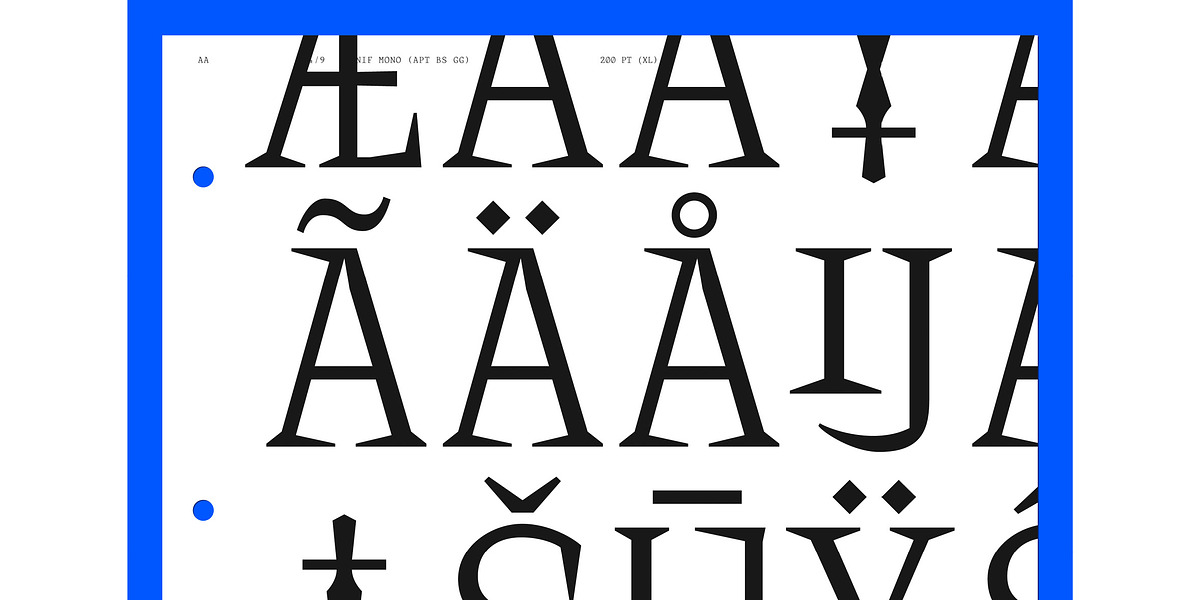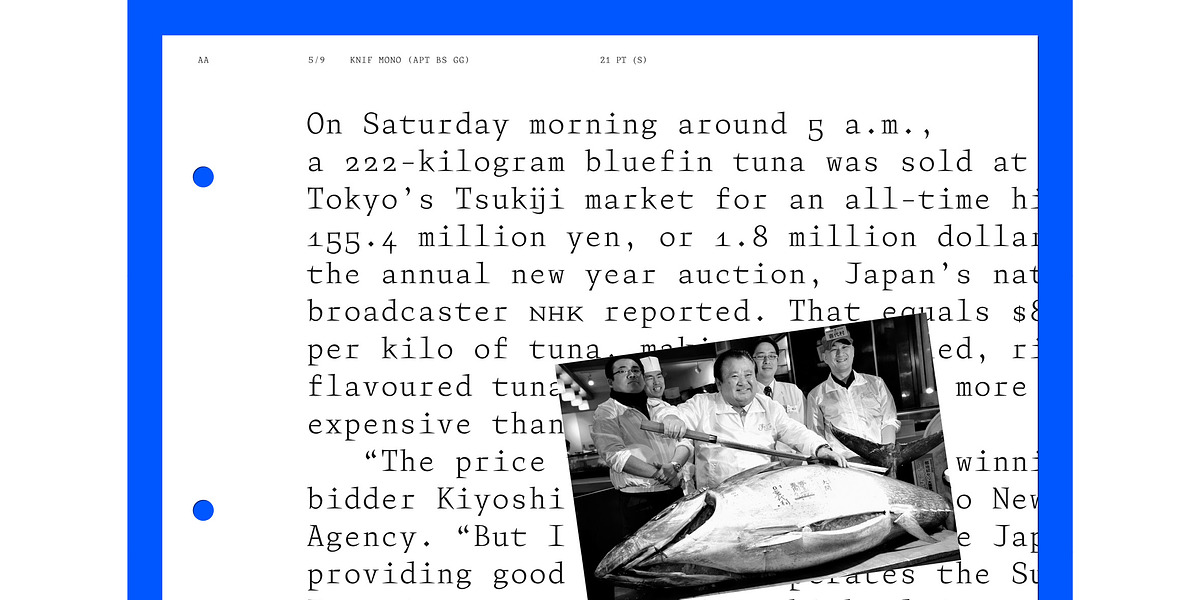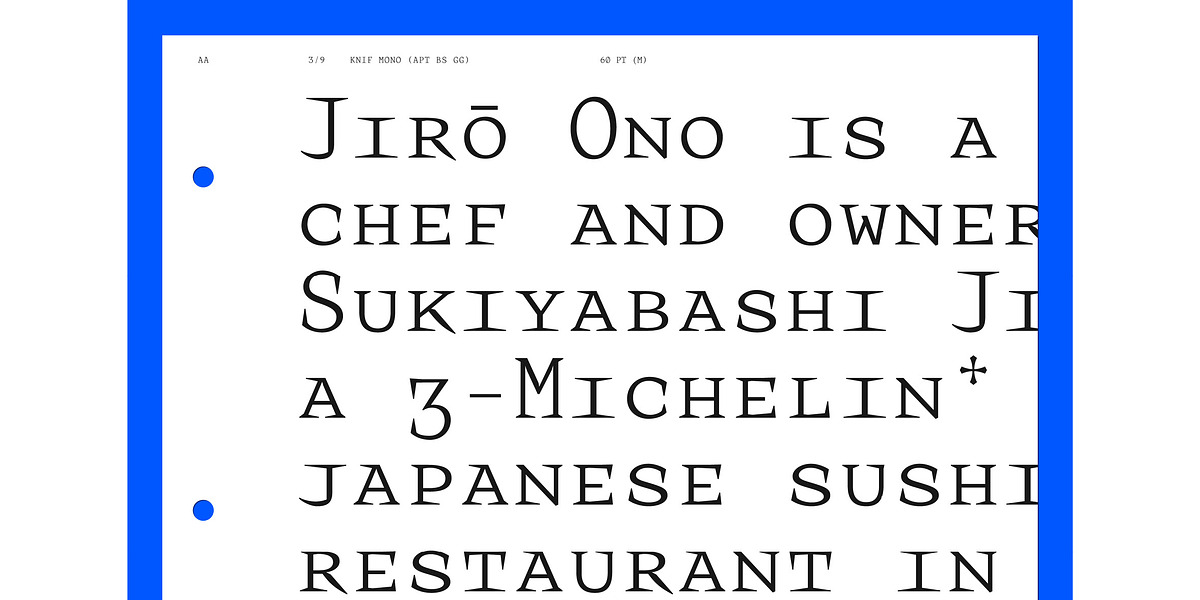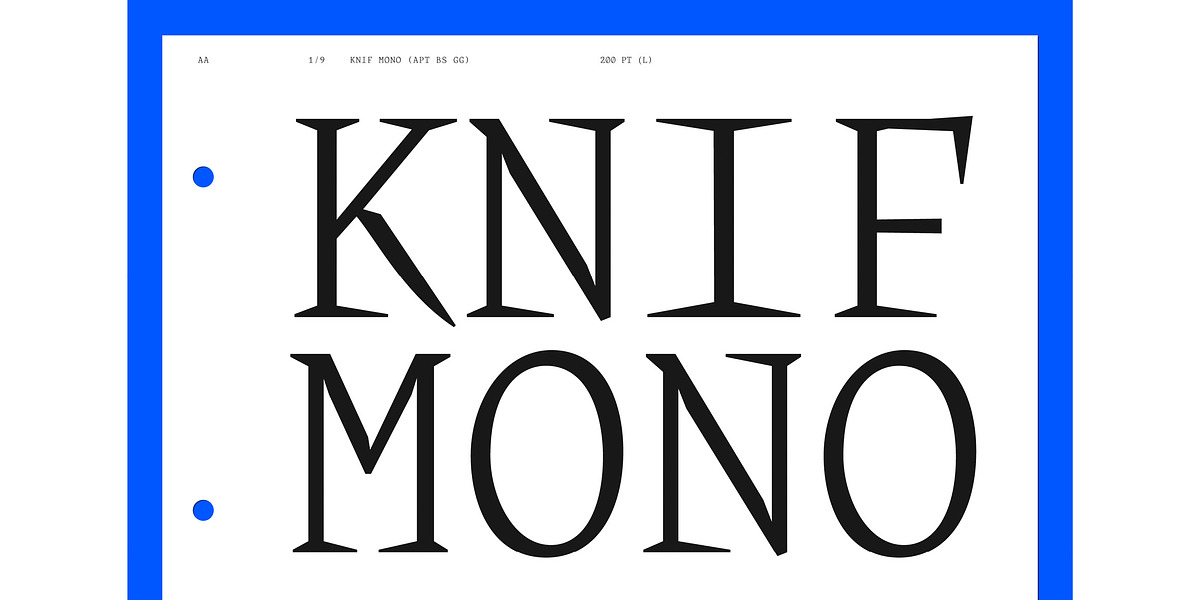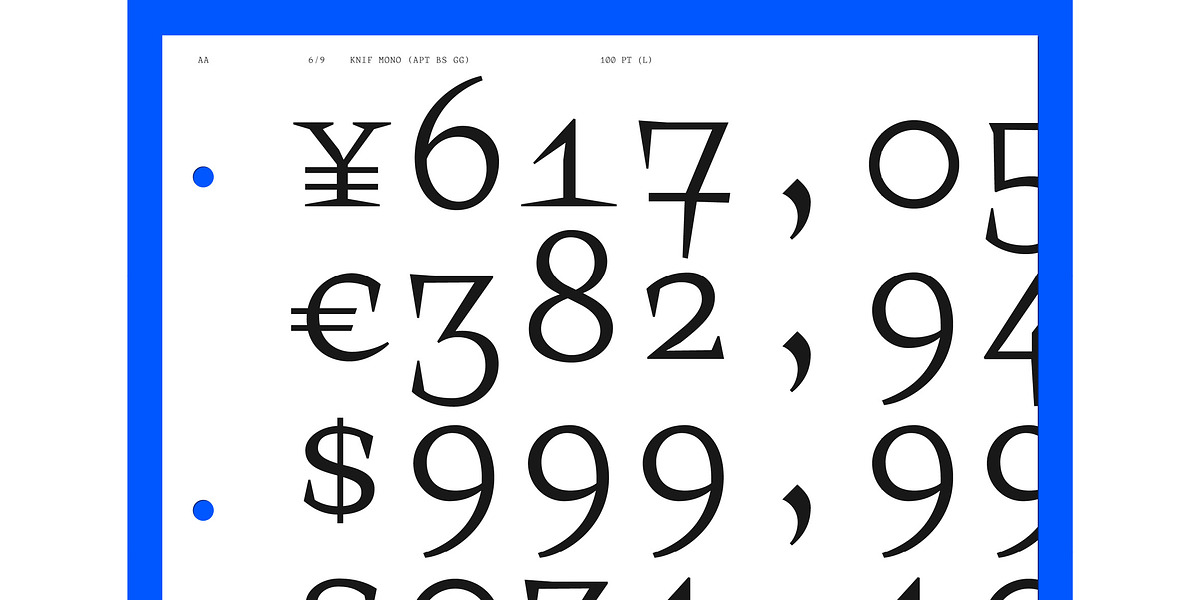
Knif Mono
Knif is a monospaced typewriter font characterized by its sharp, pointed serifs. Designed by Axel Pelletanche-Thévenart with artistic direction from Guillaume Grall and Benoît Santiard, Knif's stark design reflects a concise creative process. Its monospaced nature makes it well-suited for coding, text editing, and display purposes where clarity and precision are key.